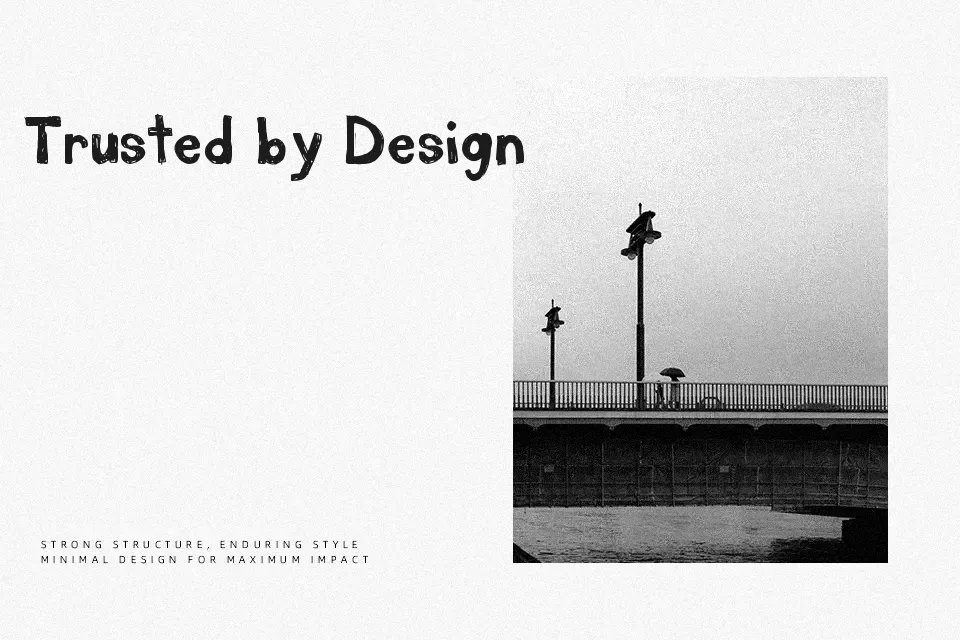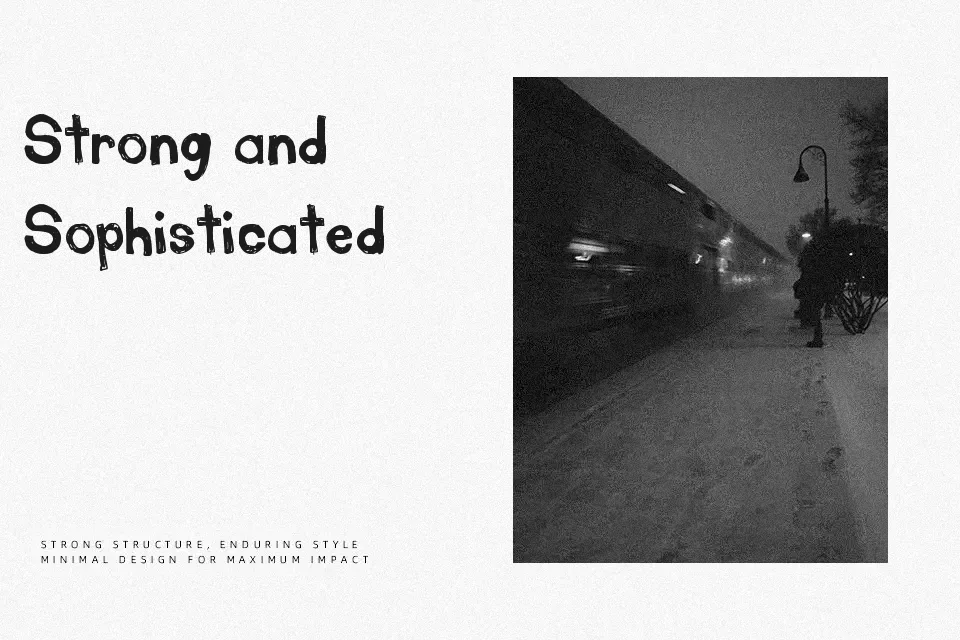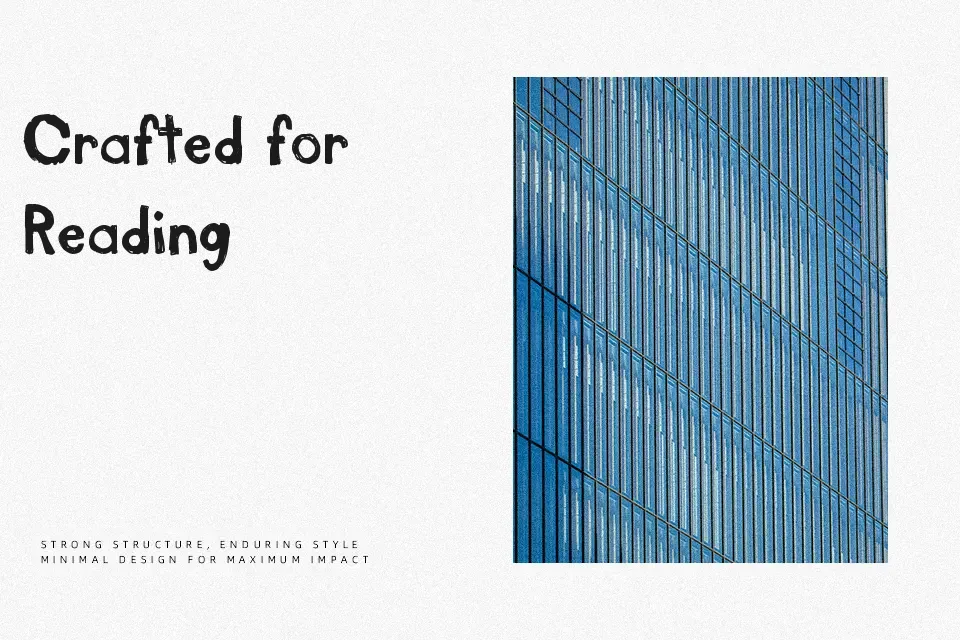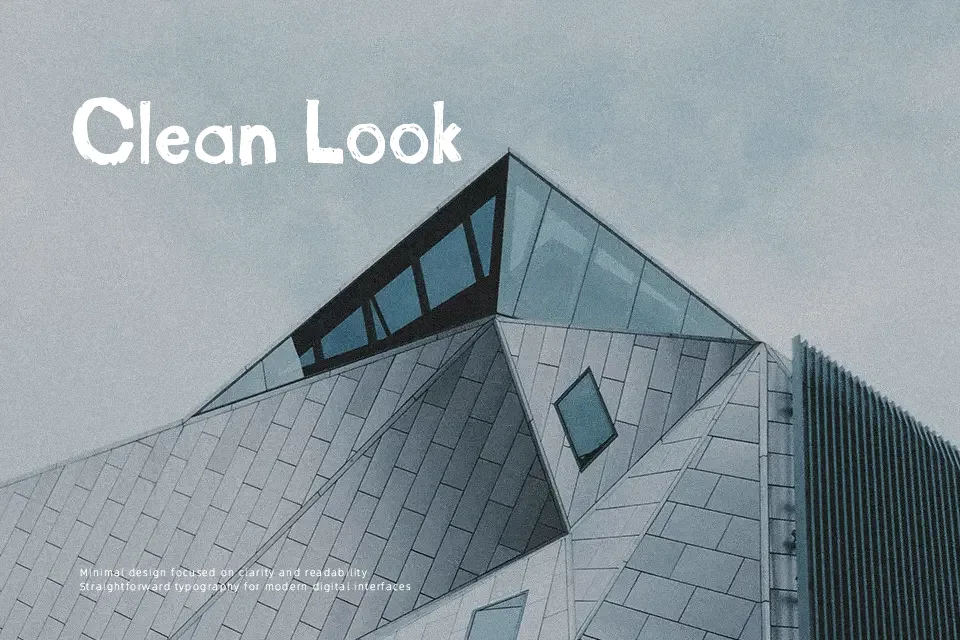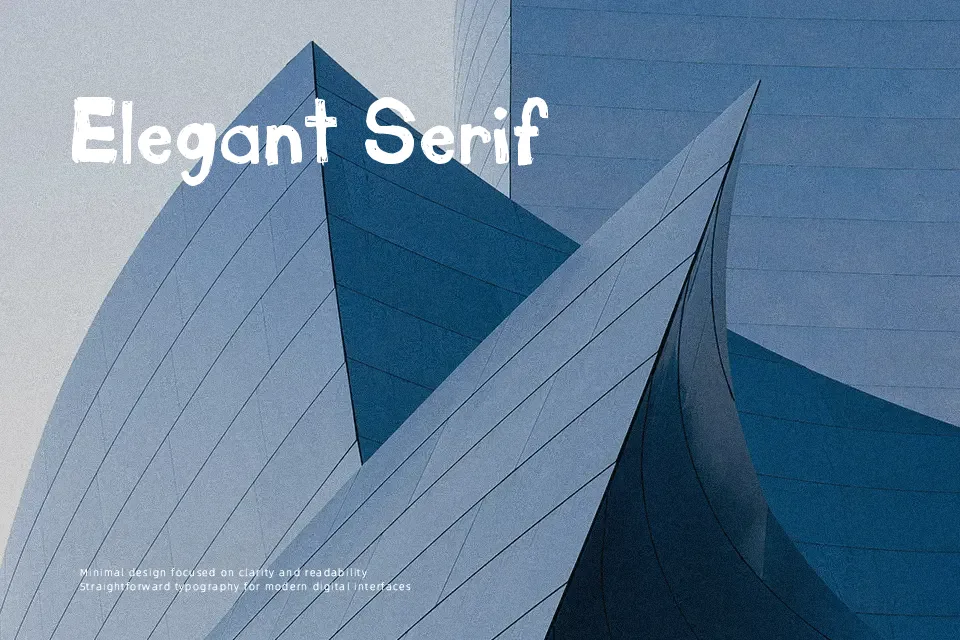
Take Out The Garbage Font
Designed by Kirk Shelton
Take Out The Garbage Font features heavily eroded, stencil-like letterforms characterized by distressed cutout textures, rugged edges, and inconsistent stroke weights. The dense, irregular character spacing establishes an energetic visual rhythm that preserves punchy legibility across large headline treatments. At condensed display scales, the bold structural framing reinforces a raw, industrial presence across band posters, apparel graphics, and gritty packaging concepts. However, the fragmented contours and harsh internal erosion severely degrade reading comfort at smaller body sizes. The gritty aesthetic creates immediate dramatic tension across large-format titles while remaining completely impractical for paragraphs.
Best For: punk rock concert flyers, streetwear graphic tees, horror film titles, skateboard deck artwork
Not Ideal For: continuous body text, mobile interface labels, corporate business reports, legal documentation
Perfect for advertising, branding, and headline, with a dark and decorative style.